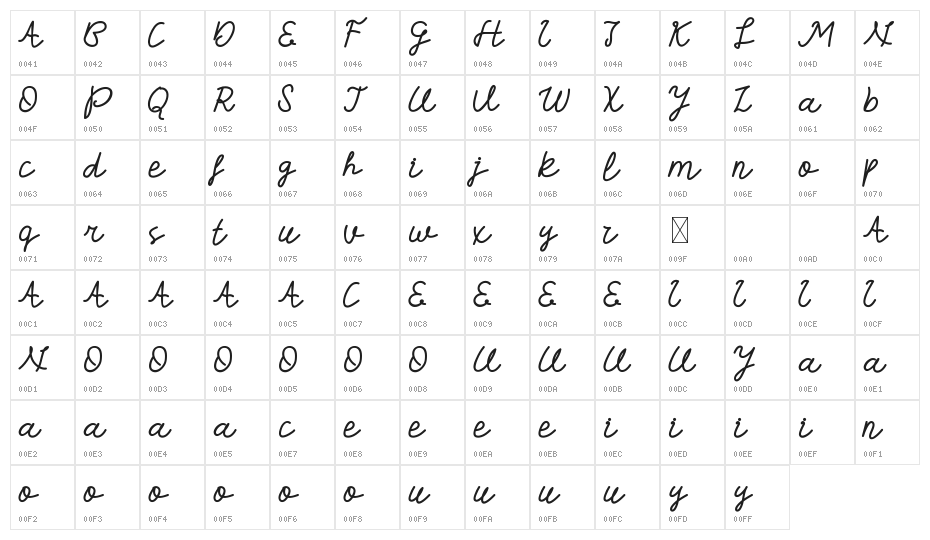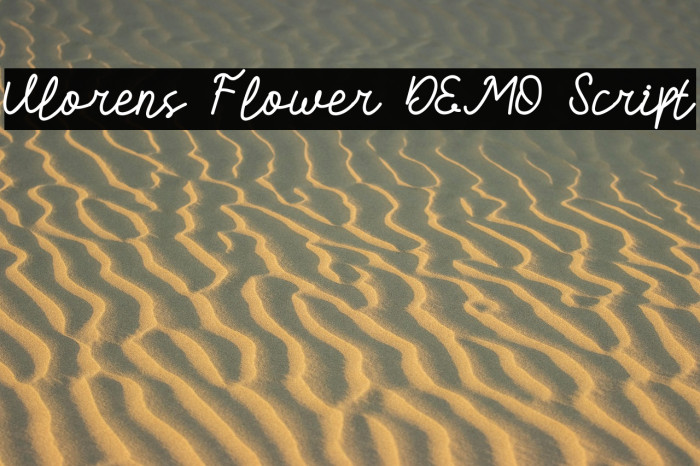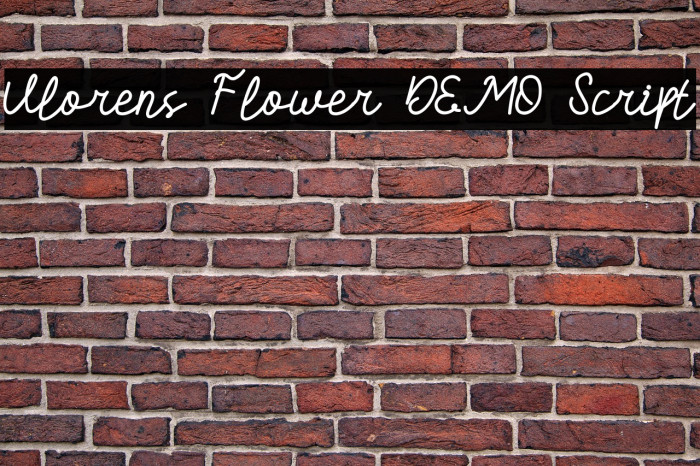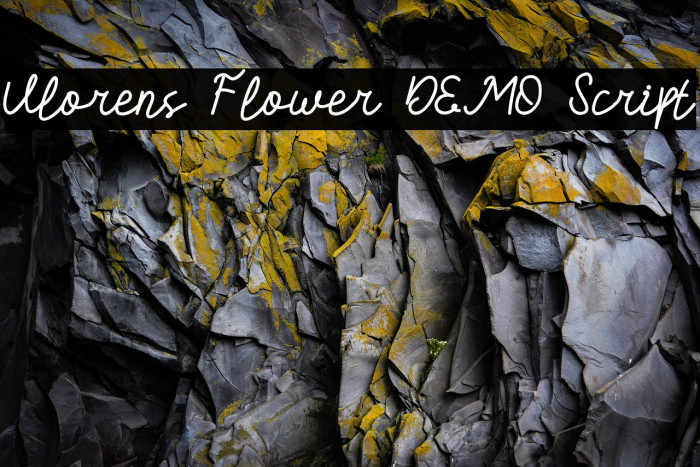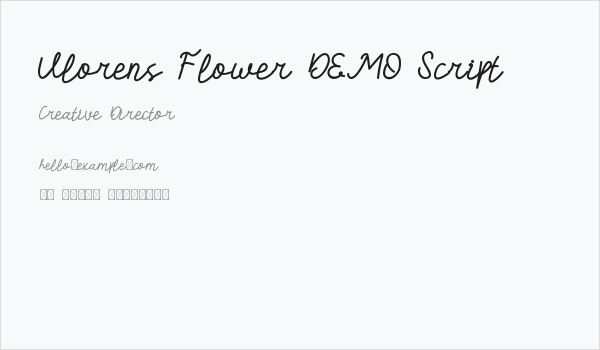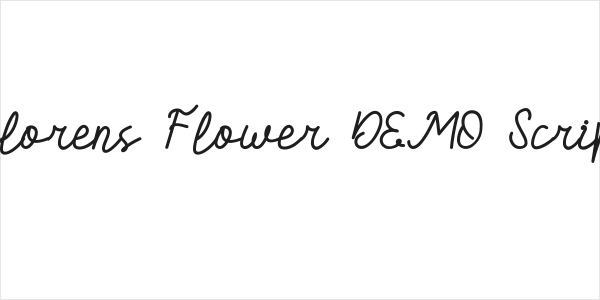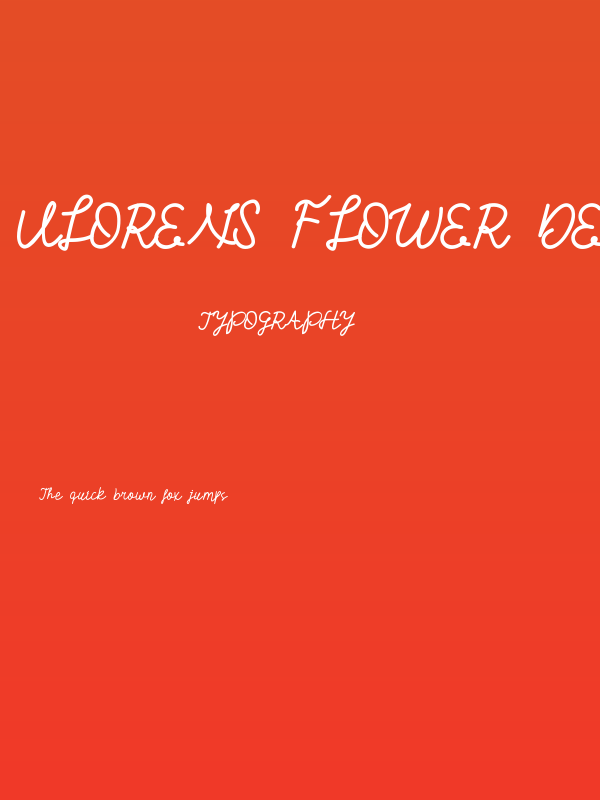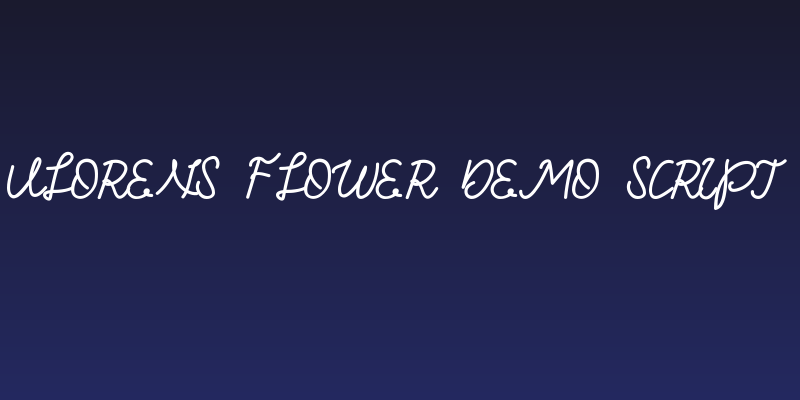
Vlorens Flower DEMO Script Font
Vlorens Flower DEMO Script Description
This font features a flowing, cursive style with elegant, interconnected letters that mimic natural handwriting. The strokes are smooth and consistent, giving it a graceful and fluid appearance. The uppercase and lowercase letters are designed with a slight slant, enhancing the script's dynamic feel. The font maintains a uniform stroke width, providing a balanced and harmonious look. Its decorative nature makes it suitable for creative and artistic projects, where a personal touch is desired. The characters are well-spaced, ensuring readability while retaining the script's intricate design.
| Use Case | Logos, Invitations, Artistic projects |
| Proposed Projects | Ideal for wedding invitations, greeting cards, personal branding, and artistic projects. |